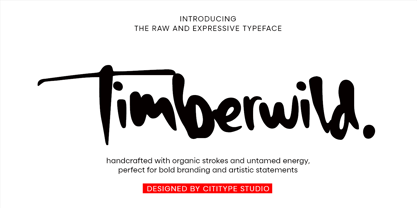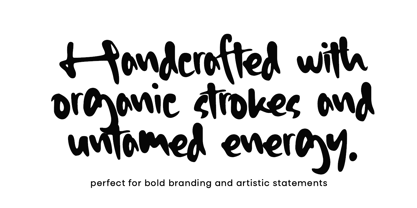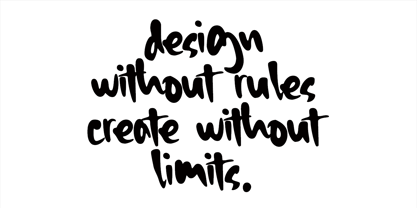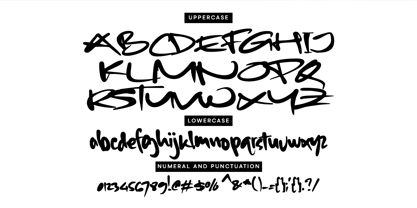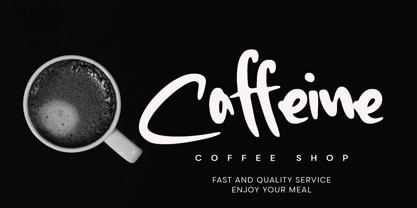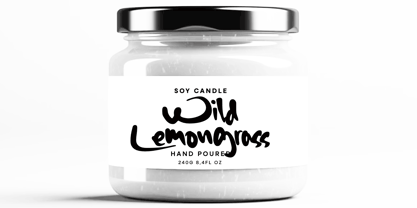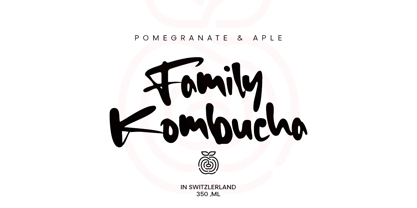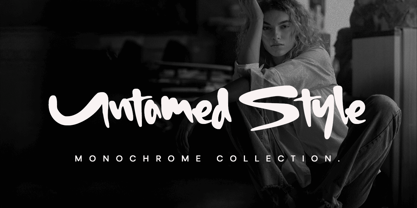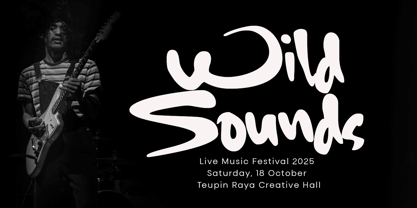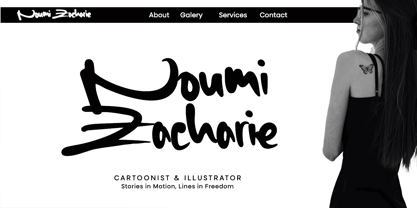
Timberwild
by Cititype
The Timberwild Font Family was designed by Muhammad Ridha Agusni, Siti Saribanon Nurjannah and published by Cititype. Timberwild contains 1 styles. More about this family
Timberwild is a raw and expressive typeface crafted with untamed brush strokes and organic flow. Every letter captures the spirit of freedom, spontaneity, and handmade artistry, perfect for bold statements and striking visuals.
Designed for creators who dare to stand out, Timberwild brings an authentic human touch to logos, posters, packaging, apparel, and creative branding. With a wide set of ligatures, multilingual support, and dynamic strokes, this font adapts effortlessly from edgy headlines to artistic compositions.
Let Timberwild infuse your design with wild energy and fearless creativity.
Designers: Muhammad Ridha Agusni, Siti Saribanon Nurjannah
Foundry: Cititype